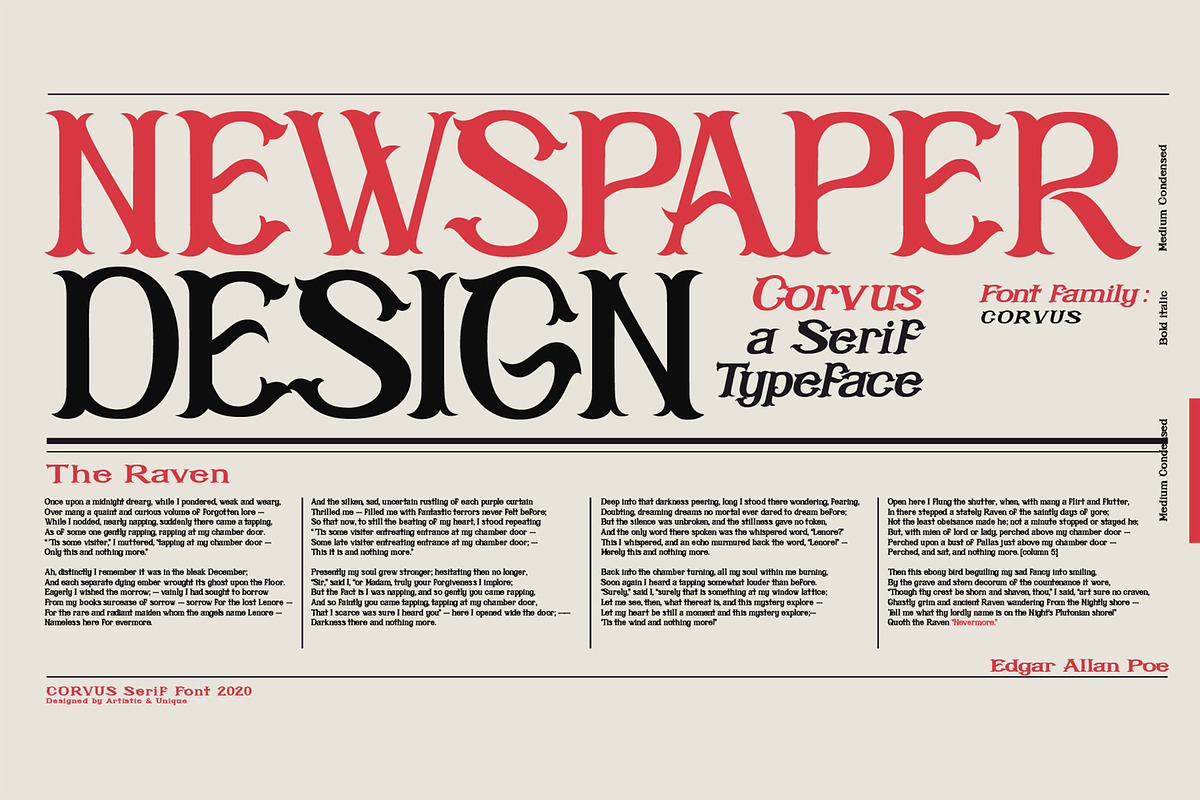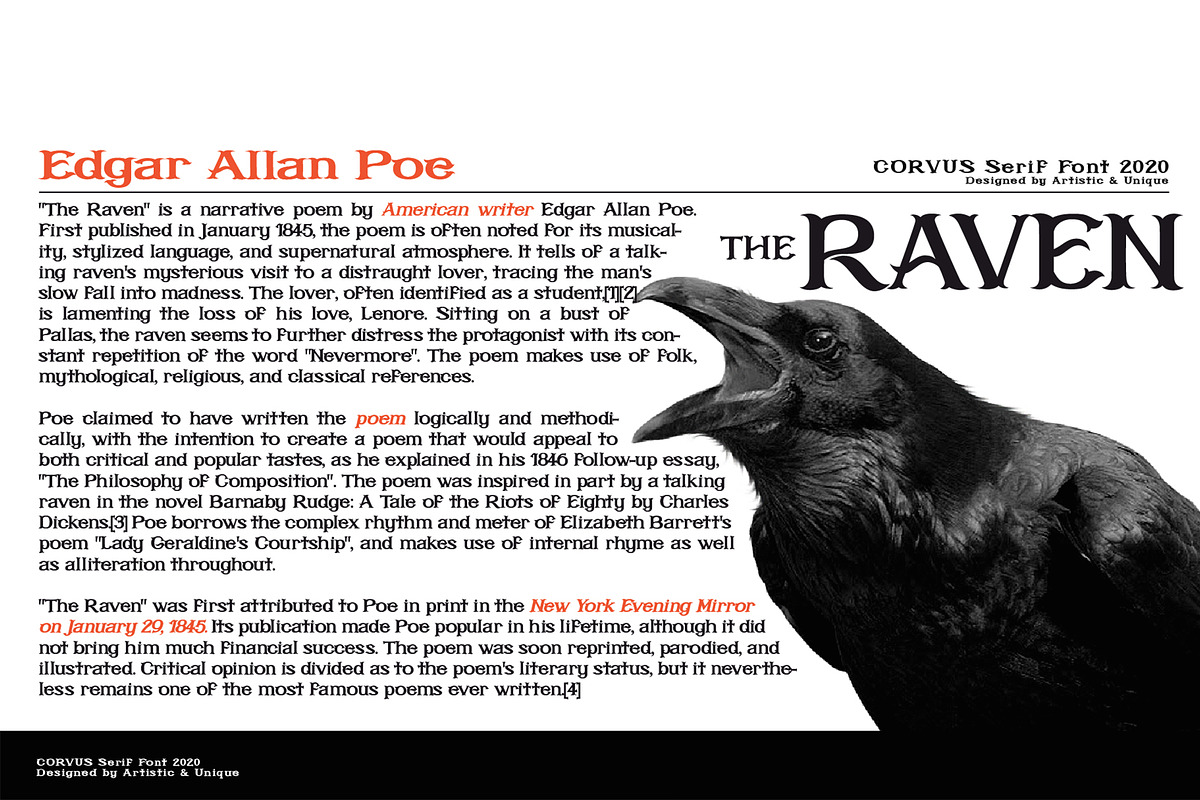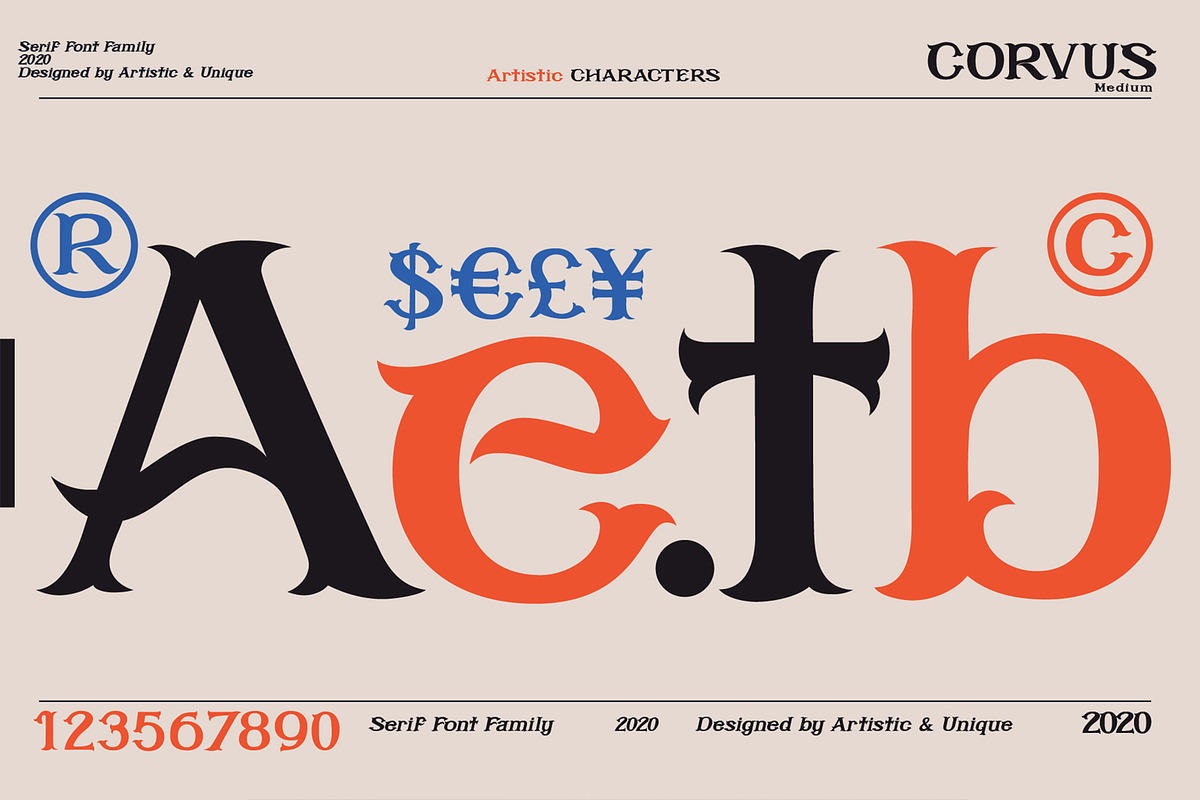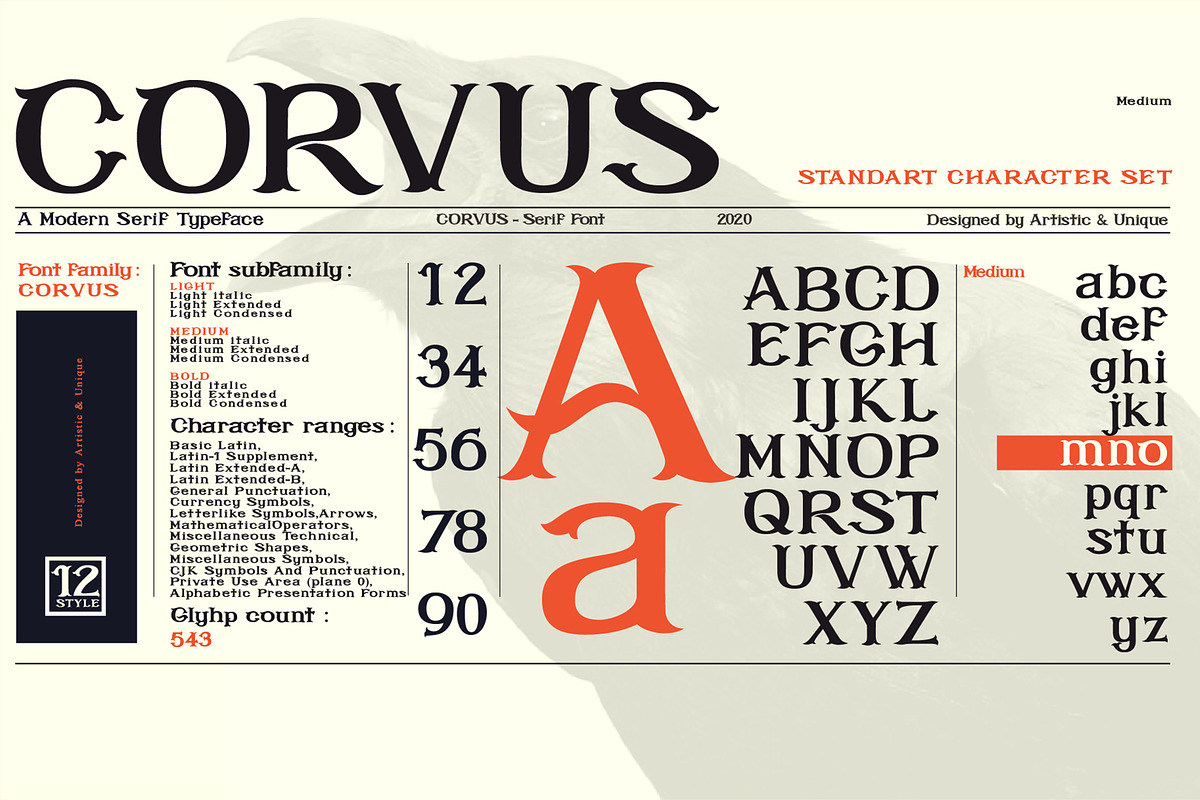
CORVUS Serif font
CORVUS Serif font Family - Multilingual (2020) - 12 STYLE
Corvus is a display serif font family, stylized with elegant soft turns that soften the sharp ends. Due to its structure, this font can meet your needs in all your modern or classic creative projects.
Corvus is ideal for creating your creative projects on similar subjects with its gloomy and Modern Gothic stance.
Absolutely perfect for titles, magazines, books, invitations, logos, packaging design, branding and more!
Corvus is the perfect font for your design ideas.
With this font you can create your unique designs.
CORVUS Serif font by Artistic & Unique fits naturally into Branding, posters, packaging, typography.